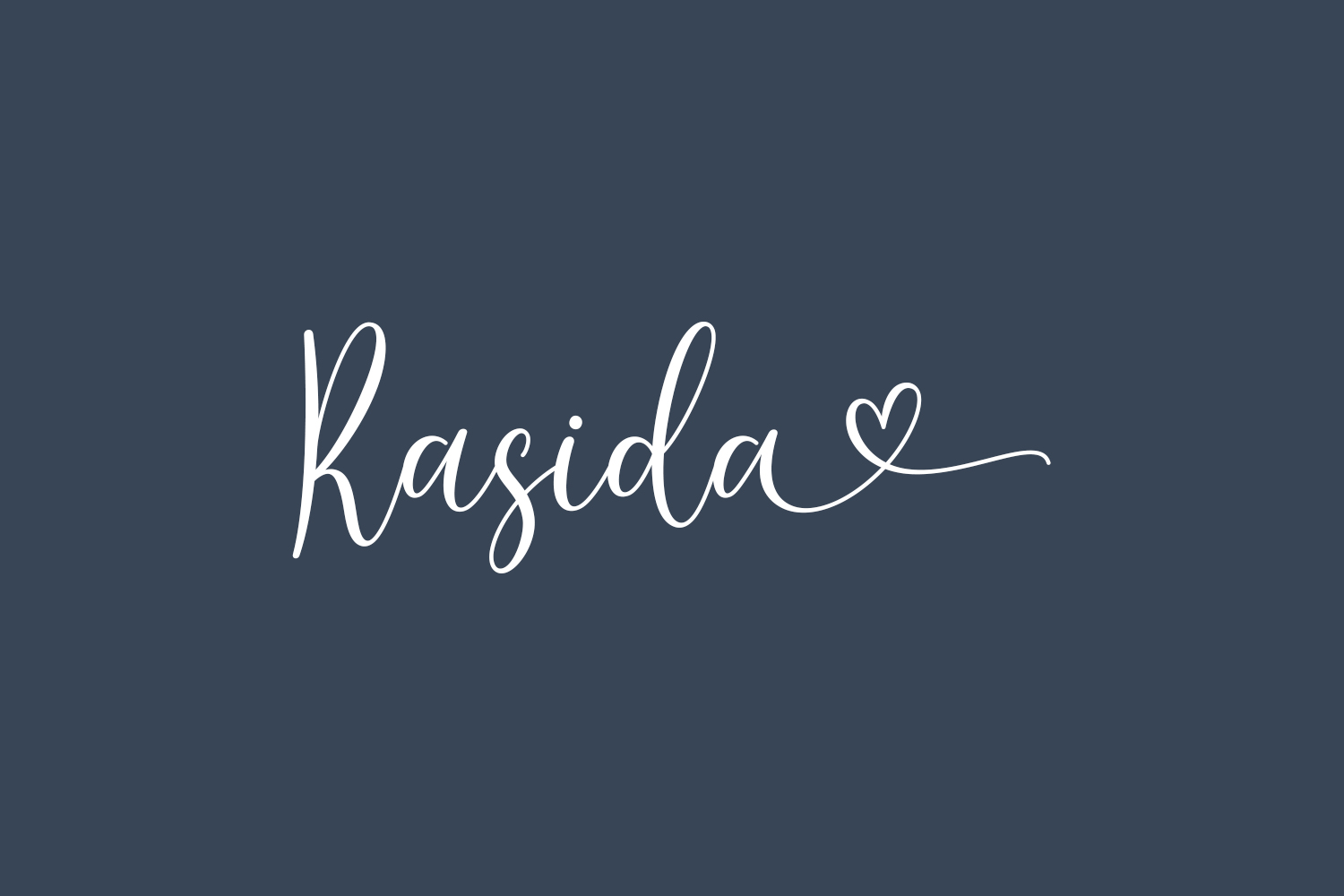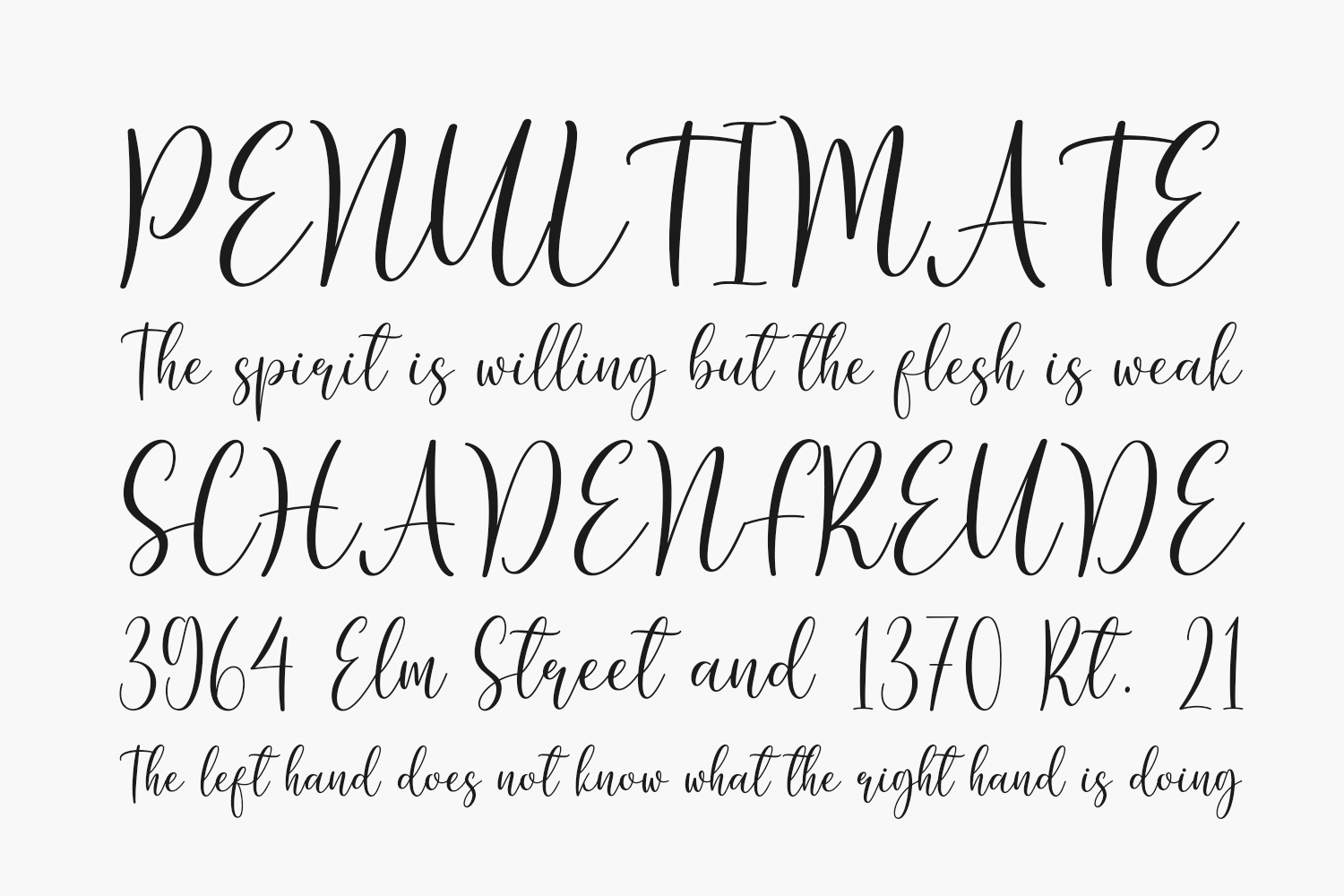
Rasida Free Font is a genuine and relaxed handwritten font. This font is suitable for logotypes, weddings, titles, watermarks, and many more designs that require a personalized yet casual touch. Rasida Free Font was designed by AV Type and is free for personal use only. Please purchase the full version for commercial use.